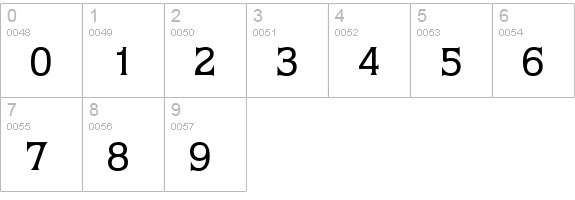
Stack Light SSi Medium is a refined, elegant variant in the Stack typeface family \xE2\x80\x94 well suited to elegant body text, refined sub-headings, and luxury branding.
Stack Light SSi Medium is a sleek and modern font that exudes a sense of elegance and professionalism. It is a versatile typeface that can be used for a wide range of design projects, from branding and advertising to web design and print materials. With its clean lines and balanced proportions, Stack Light SSi Medium is easily legible in both small and large sizes, making it perfect for headings, titles, and body text. Its medium weight adds a touch of sophistication to any design, while still maintaining a sense of approachability and friendliness. One of the best things about Stack Light SSi Medium is that it is available for free download at FontsMarket.com. This means that you can easily access and use this font in your projects without any cost. Whether you are a professional designer or a hobbyist, having access to high-quality fonts like Stack Light SSi Medium can greatly enhance the visual impact of your work. So why wait? Go ahead and download Stack Light SSi Medium for free at FontsMarket.com and elevate your designs to the next level. With its timeless elegance and versatility, this font is sure to make a lasting impression on your audience.